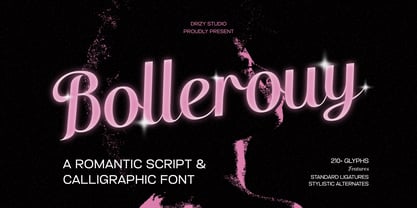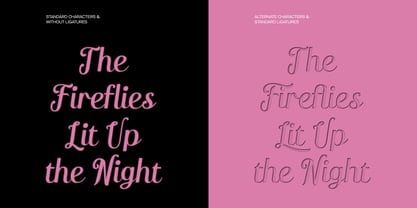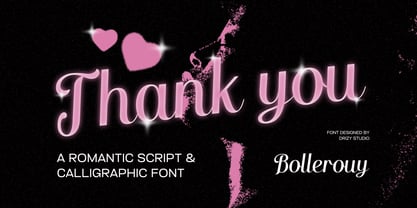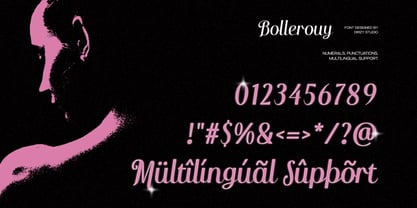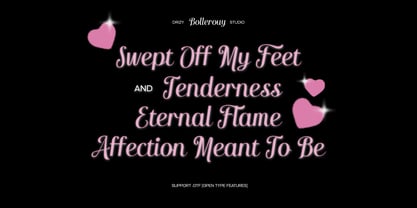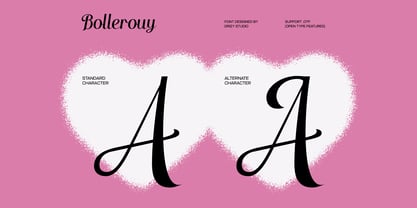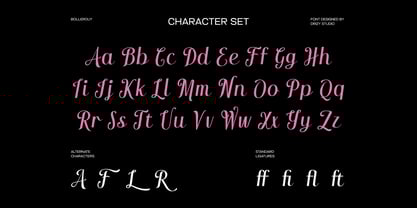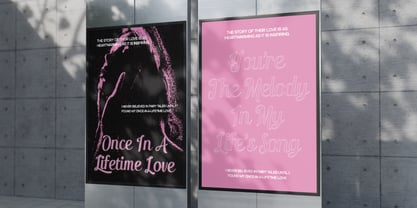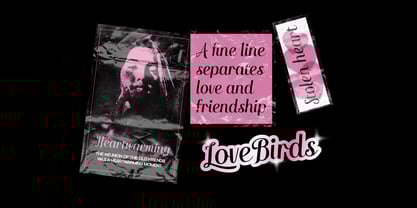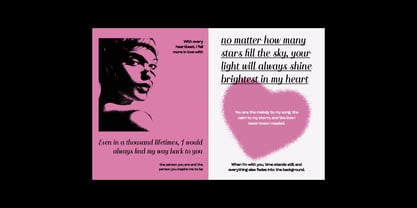
Bollerouy
by Drizy Font
The Bollerouy Font Family was designed by Panca Ahmadi Hasan and published by Drizy Font. Bollerouy contains 1 styles. More about this family
Bollerouy – Romantic Script and Calligraphic Font
Bollerouy is the ultimate fusion of script elegance and calligraphic artistry. Perfect for the dreamers and Emo Romance, this font is designed to capture the essence of passion and nostalgia. With it’s flowing curves and delicate details, Bollerouy brings a touch of timeless sophistication to every project. Whether you’re designing wedding invitations, love letters, or emo-inspired art, this font group creates a story of romance with every stroke. Pair it with dreamy color palettes and moody backdrops to unleash its full potential. Transform words into poetry with Bollerouy Romantic Script & Calligraphic, where every letter becomes a brushstroke of love.
Bollerouy – Romantic Script and Calligraphic Font features:
• Character Set (Uppercase & Lowercase)
• Punctuation & Numbers
• Multilingual
• Ligatures
• Stylistics set 01
Designers: Panca Ahmadi Hasan
Foundry: Drizy Font